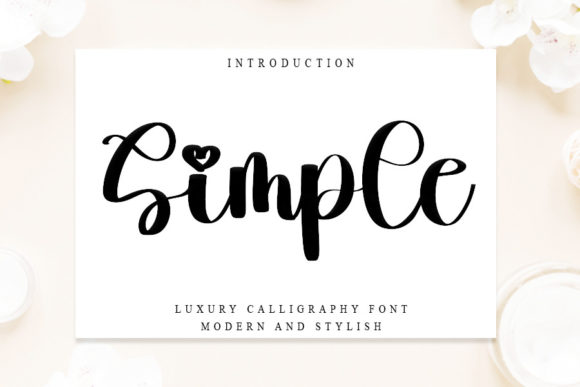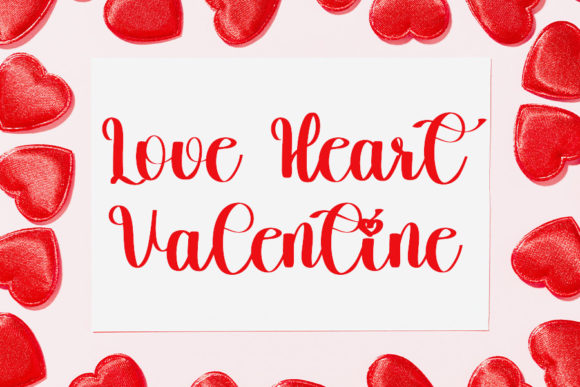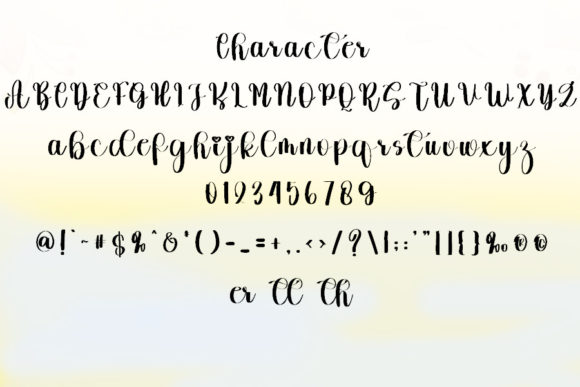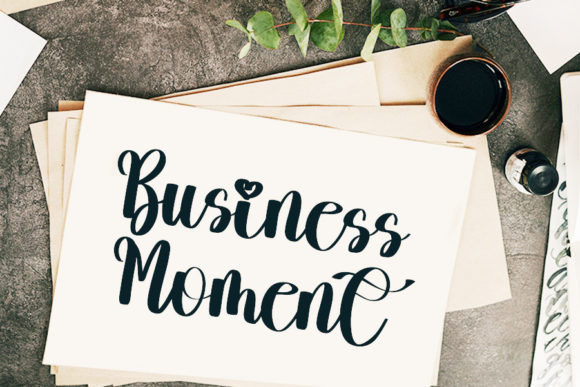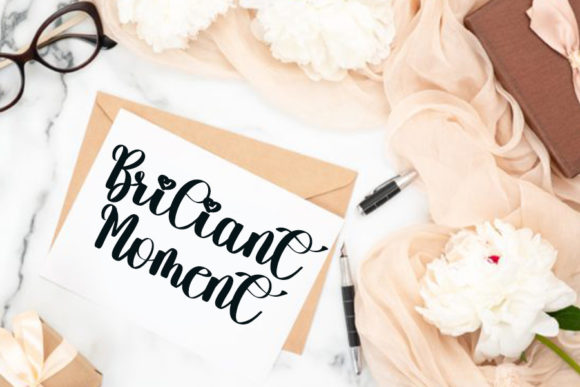
Simple Font
About Simple Font
SimpleĀ is a chic and sweet lettered handwritten font. This versatile script font has a wide spectrum of applications ranging from greeting cards to headlines and is guaranteed to add a romantic feel to your next project.